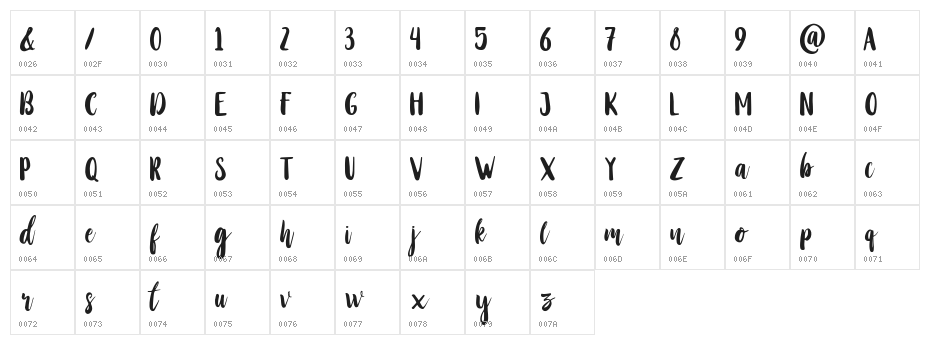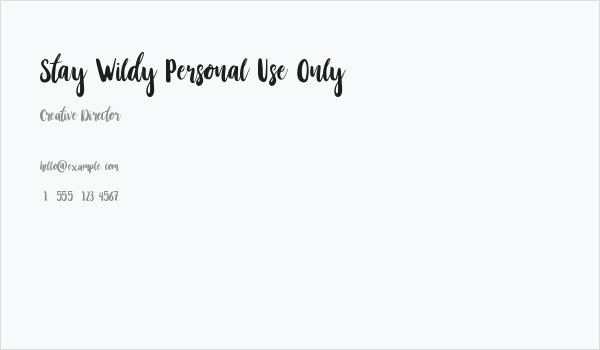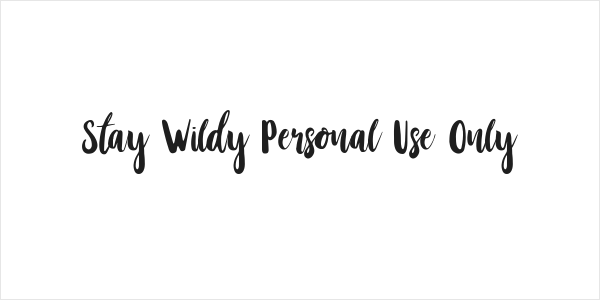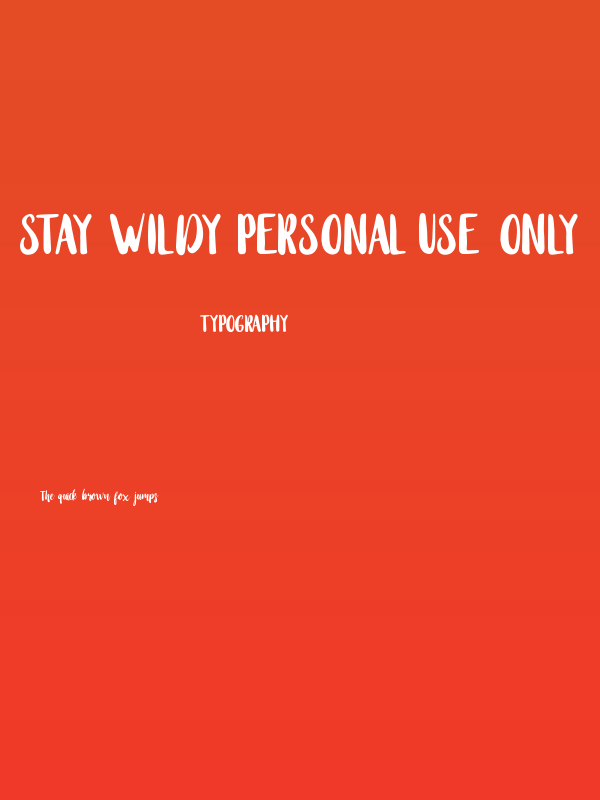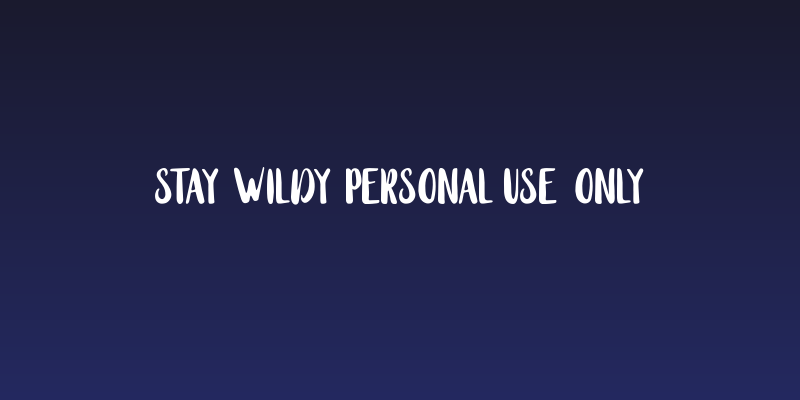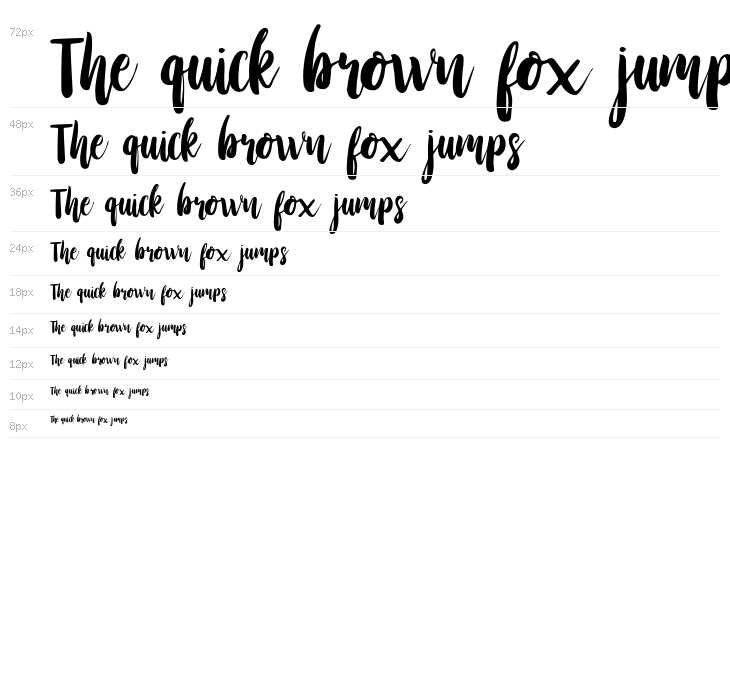
Stay Wildy Personal Use Only Font
Stay Wildy Personal Use Only Description
This font features a playful and bold style with a handwritten feel. The uppercase letters are thick and rounded, giving a strong presence, while the lowercase letters have a more fluid and cursive appearance, adding a touch of elegance. The numbers are consistent with the bold style of the uppercase letters, ensuring readability. Special characters like the ampersand and slash maintain the playful and bold characteristics, making them stand out. The overall design is perfect for projects that require a personal and creative touch.
| Proposed Projects | Ideal for greeting cards, invitations, posters, and branding materials that require a personal and creative touch. |